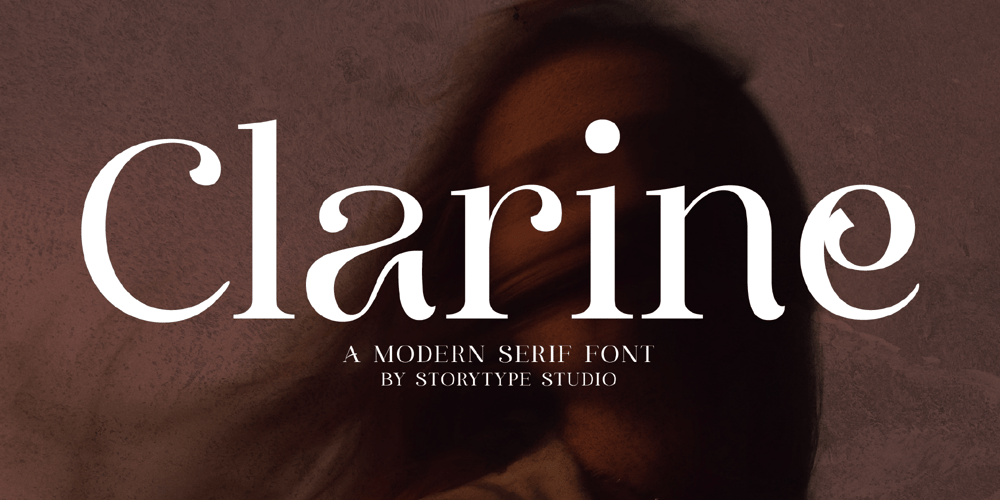
Clarine Font Family was designed by Heru Utama Putra and published by Letterena Studios. Clarine contains 2 styles and family package options. Clarine is a modern and classic serif typeface with a unique style and modern look. This typeface is perfect for an elegant & luxury logo, book or movie title design, fashion brand, magazine, clothes, lettering, quotes, and so much more.This font is PUA encoded, which means you can access all of the glyphs and swashes with ease!